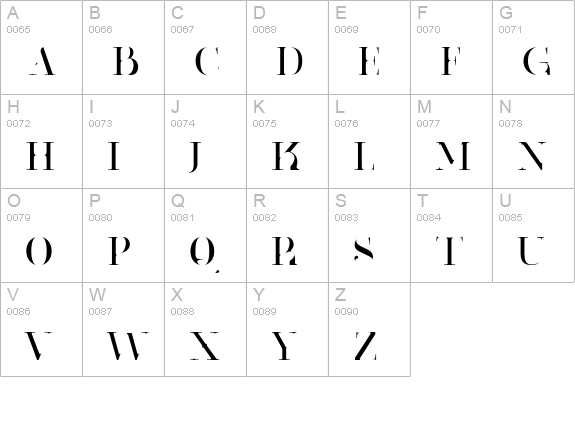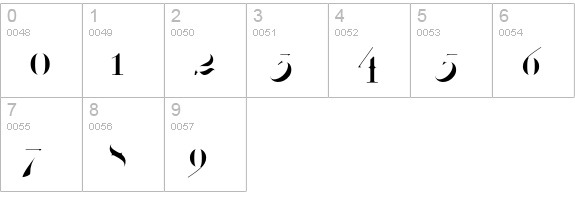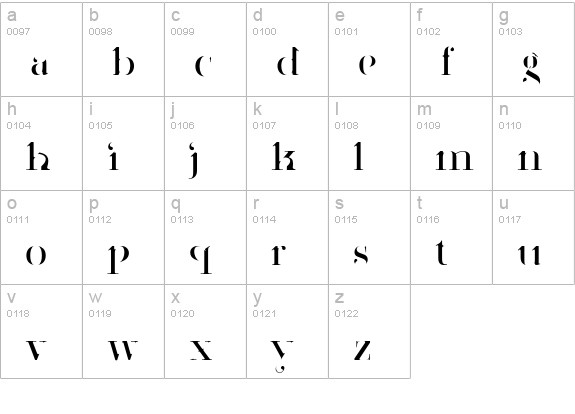
Paris Pro Regular White Font Details
Paris Pro Regular White is the standard, neutral variant in the Paris typeface family \xE2\x80\x94 well suited to general body text, paragraphs, and standard typographic work.
Paris Pro Regular White font is a modern and elegant typeface that exudes sophistication and style. With its clean lines and minimalist design, this font is perfect for a wide range of creative projects. The crisp white color adds a touch of class and clarity to any text or design. Best of all, Paris Pro Regular White font is completely free to download at FontsMarket.com. Whether you're working on a professional presentation, a trendy website, or a stylish invitation, this font is sure to make a lasting impression. Don't miss out on this versatile and visually appealing typeface – download it today and elevate your design projects to the next level.